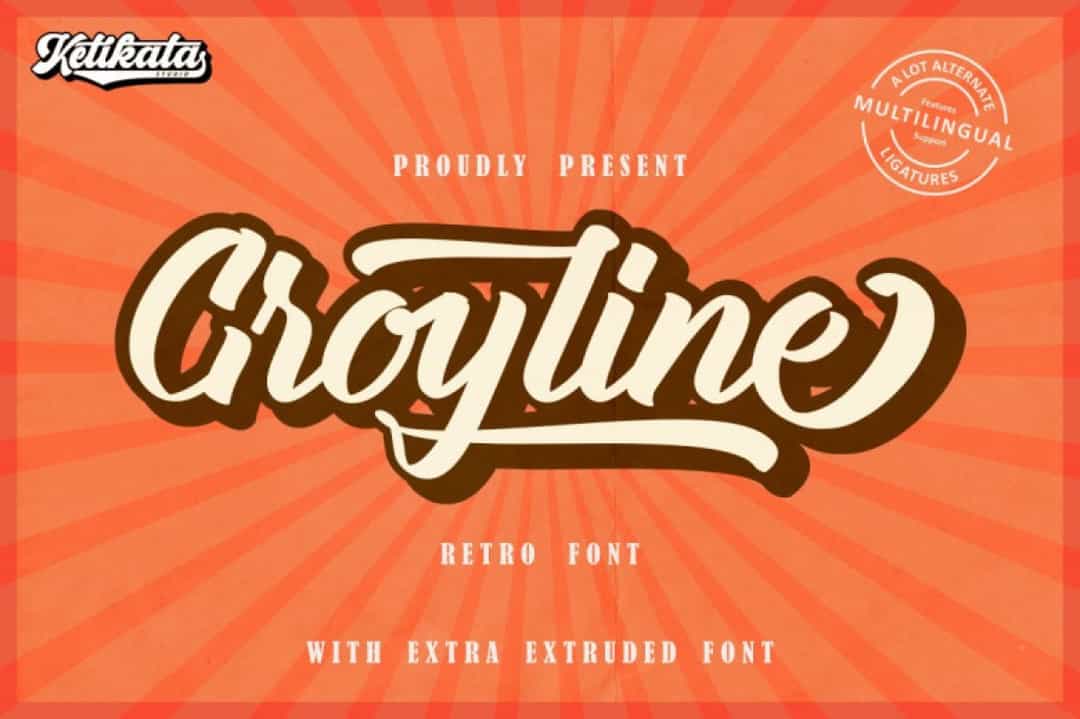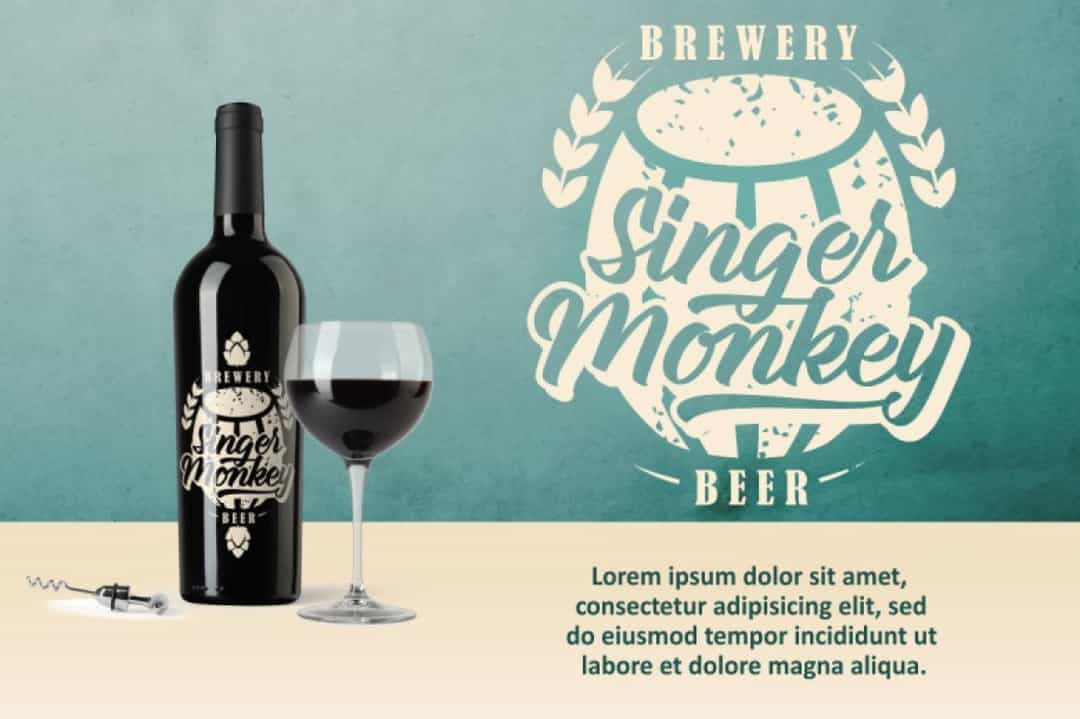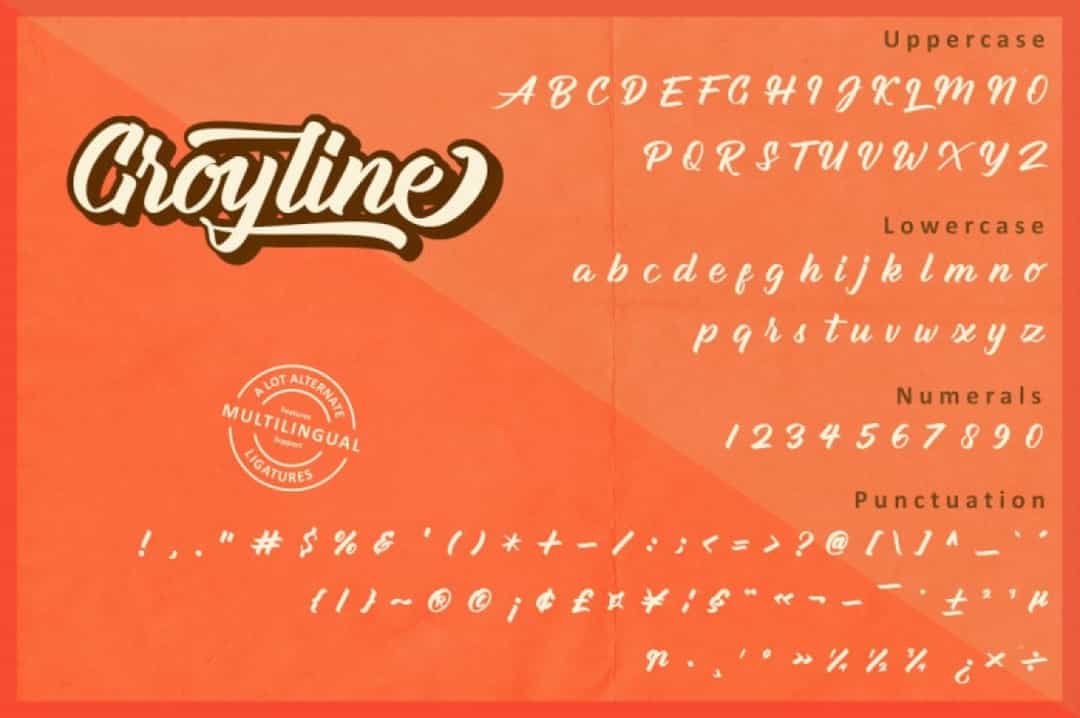
Groyline is a beautiful vintage script font which is drawn by handwritten lettering style. This font comes with numerous stylistic alternatives and swashes to enable the designer to come up with a unique design, and is suitable for branding, logos (Logotype), product packaging, merchandise and business cards among others.